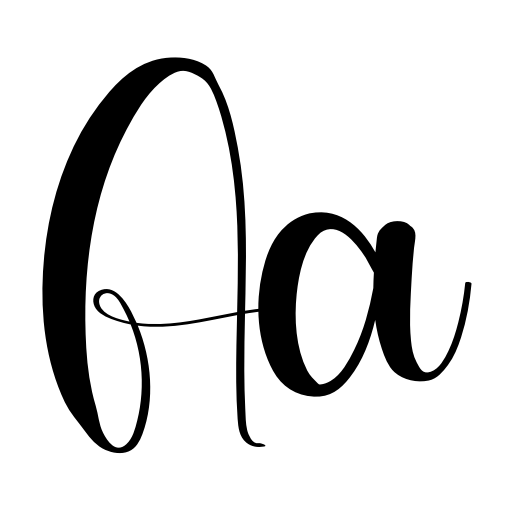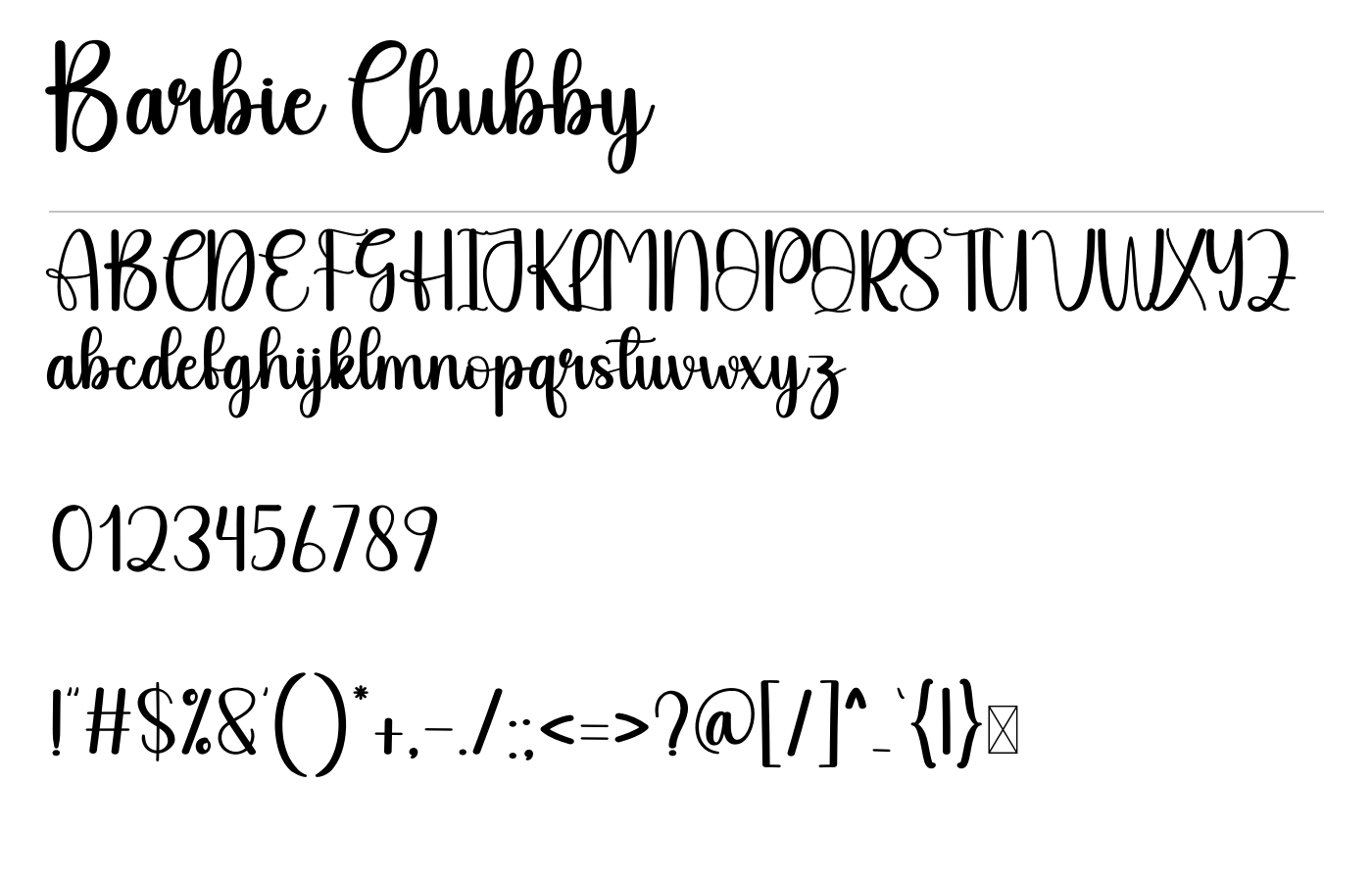
Barbie Chubby is a playful and charming script font with a casual, handwritten feel featuring thick, rounded strokes and elegant swashes. Its tall, narrow letterforms and whimsical uppercase characters add a lively personality, making it ideal for fun, youthful branding, invitations, or creative projects that seek a friendly and approachable style. This font works best in headlines, logos, and decorative text where its unique character can shine.
Barbie Chubby Font